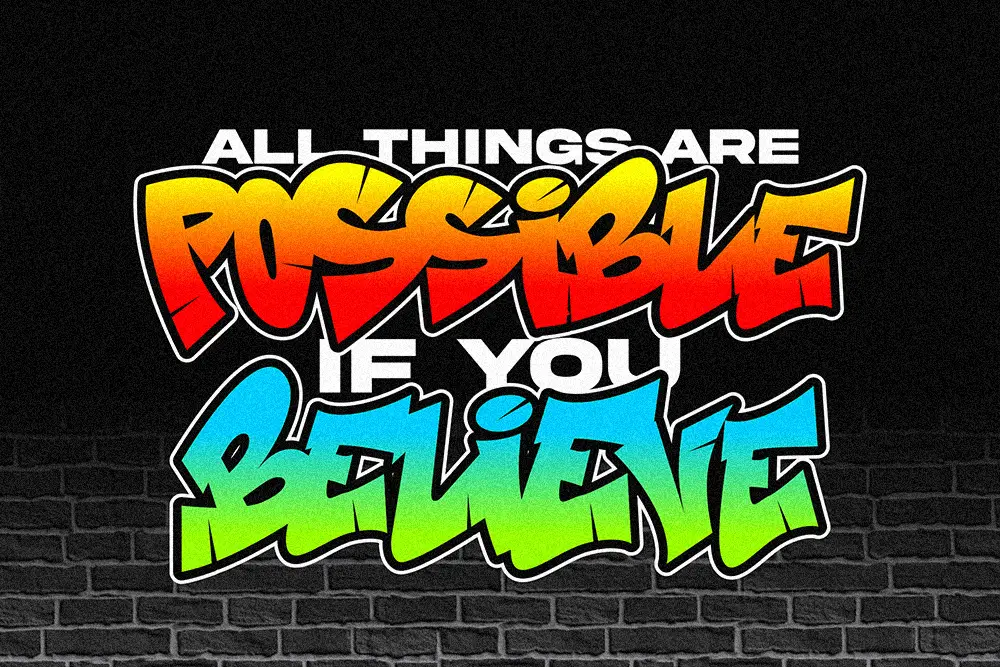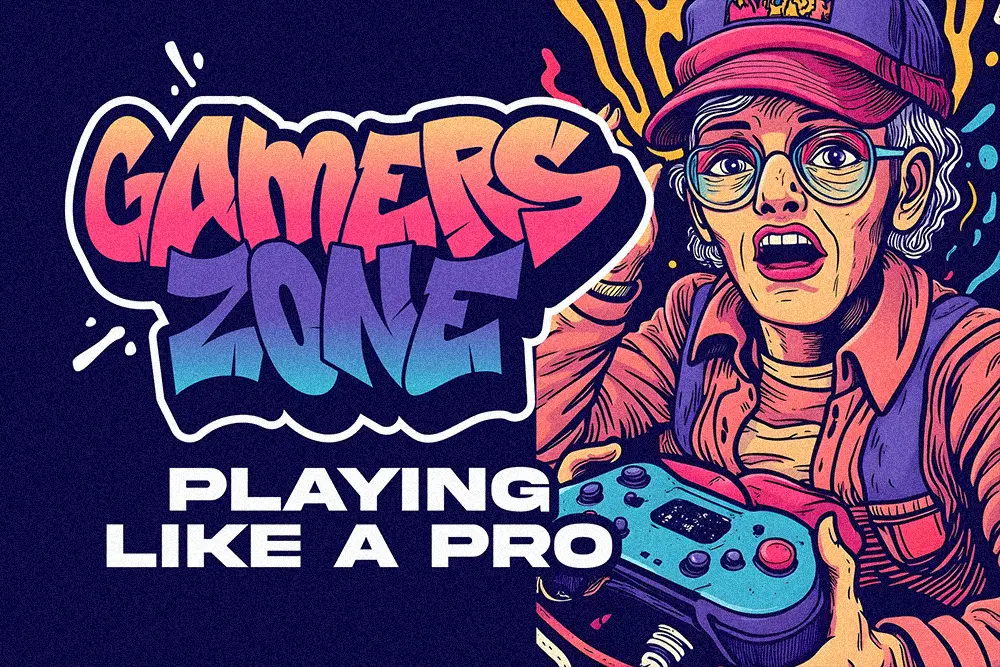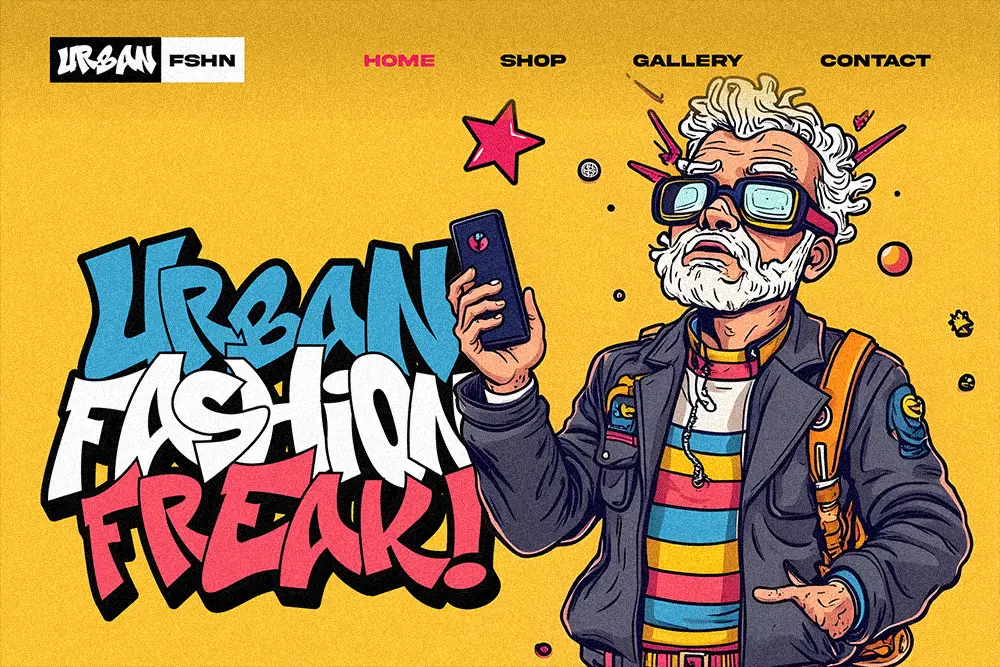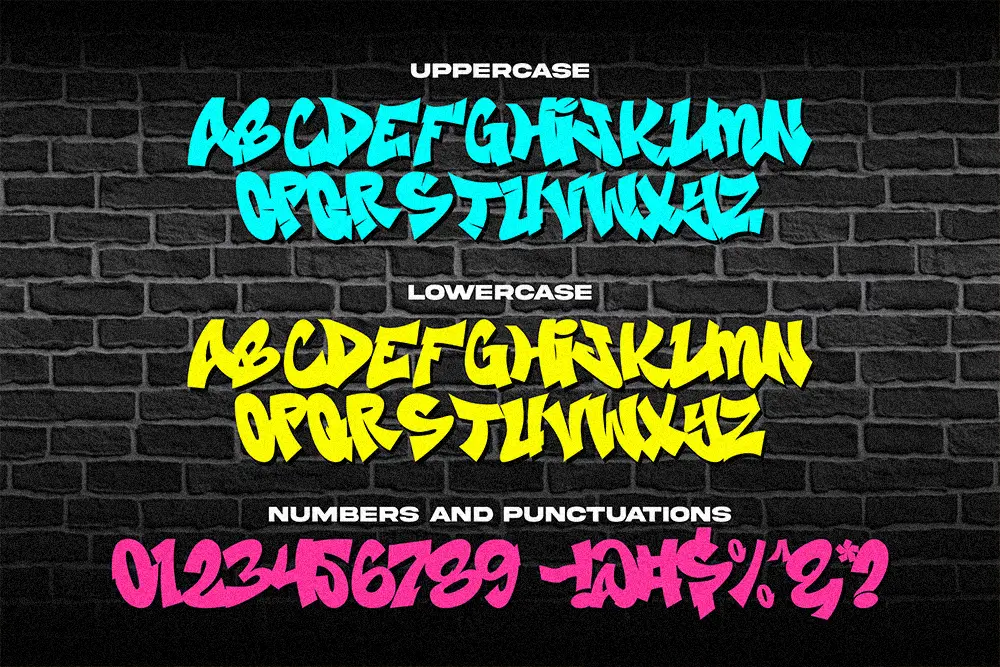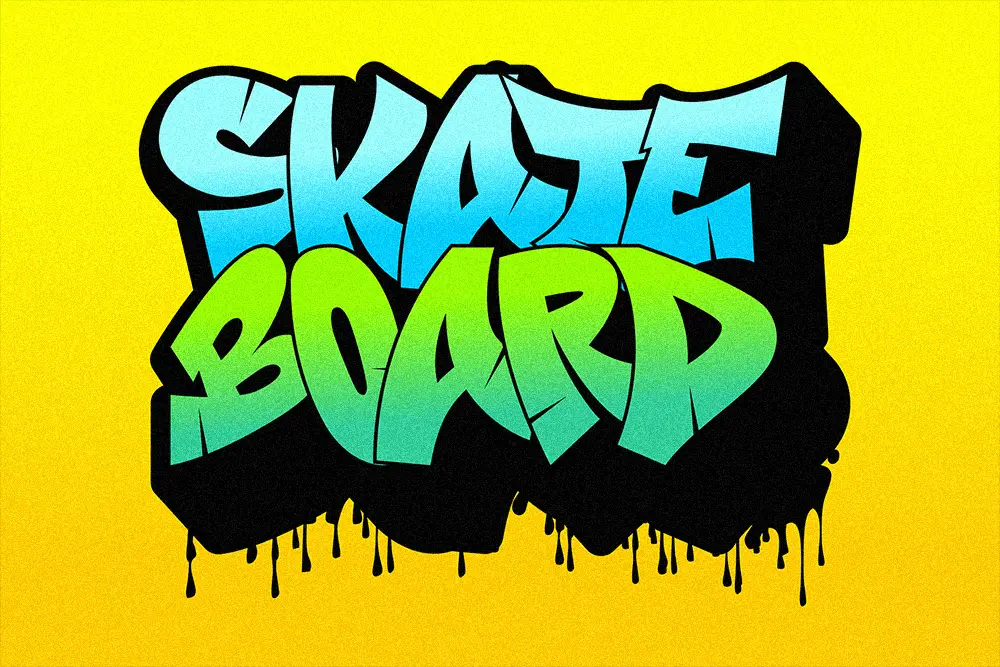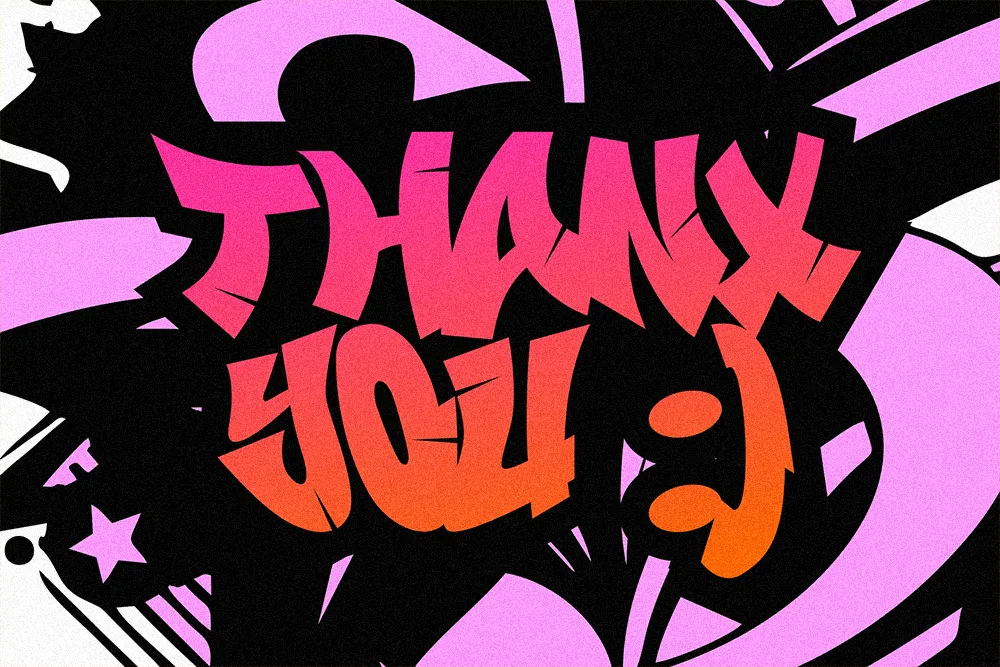
✦Loud. Colorful. Urban.
Brick Edgie is a graffiti-style display font built to bring an urban attitude to your design projects. With thick, sharp strokes and a raw handwritten look, this typeface captures the fearless energy of street culture — perfect for bold headlines, merch designs, music visuals, and more.
Whether you’re designing for a streetwear brand, a mixtape cover, or viral content on TikTok or YouTube, Brick Edgie delivers impact with zero compromise.
✦Font Features:
- Uppercase and Lowercase
- Handcrafted graffiti strokes
- Spray-paint aesthetic
✦Great For:
- Streetwear & skate branding
- Hip-hop visuals & album art
- YouTube, Reels, and TikTok graphics
- Game UI and splash screens
- Merchandise and stickers
Brick Edgie is more than a font — it’s a movement. Perfect for creators, brands, and artists who aren’t afraid to be loud, bold, and unapologetically different.